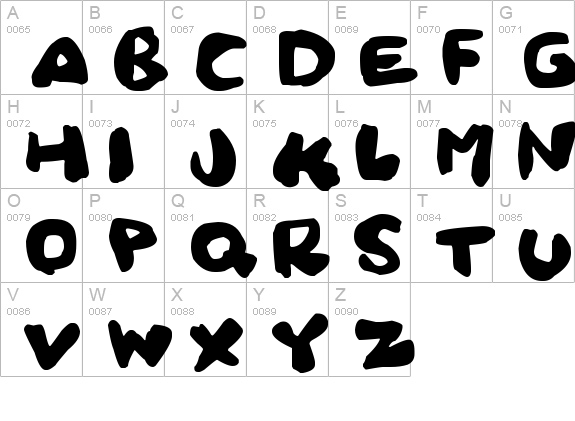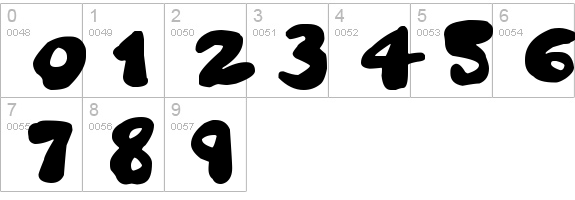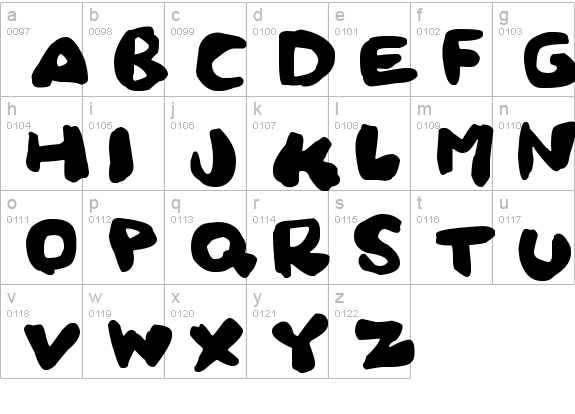
Squidgy Font Details
Squidgy is a free for personal use font in the Fancy > Comic category, designed by Darrell Flood. It has been downloaded 139 times and is available for Windows, Mac and Linux.
Squidgy font is a playful and whimsical typeface that adds a touch of fun and creativity to any design project. With its soft and rounded edges, Squidgy exudes a sense of friendliness and approachability. Perfect for children's books, invitations, posters, and more, this font is sure to bring a smile to your audience's faces.